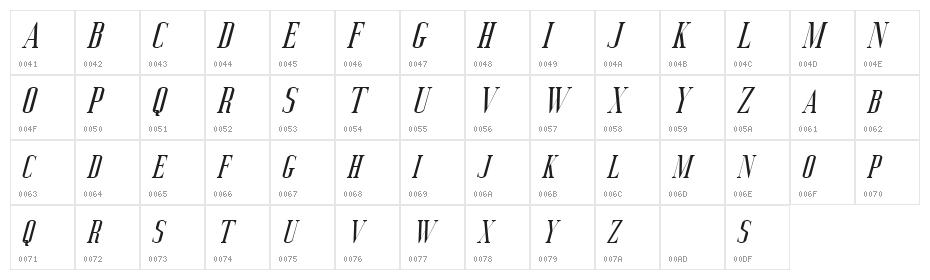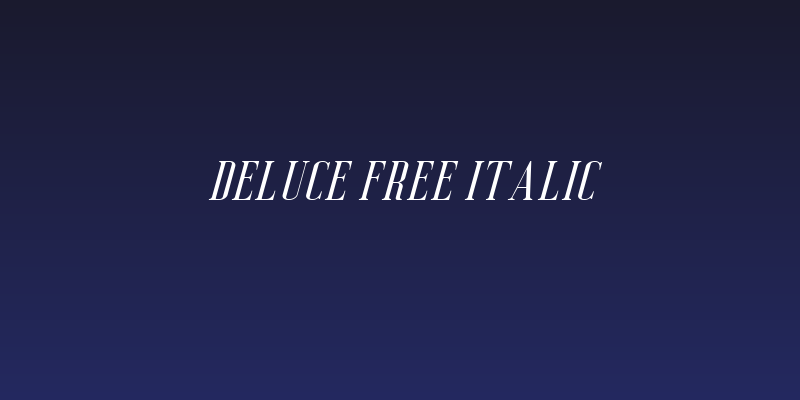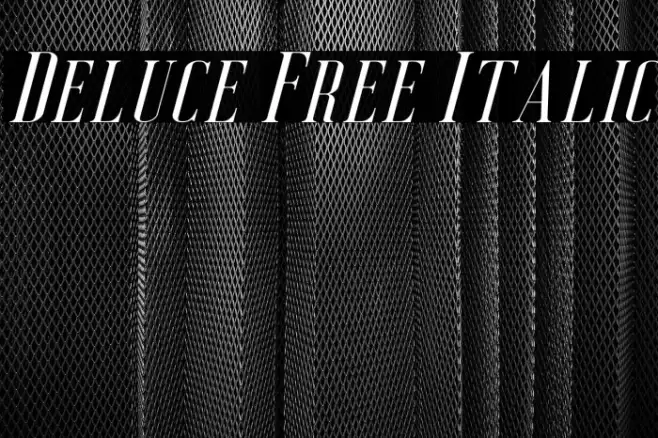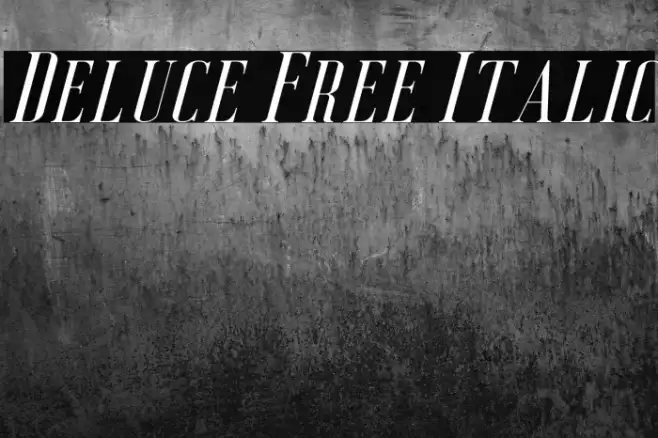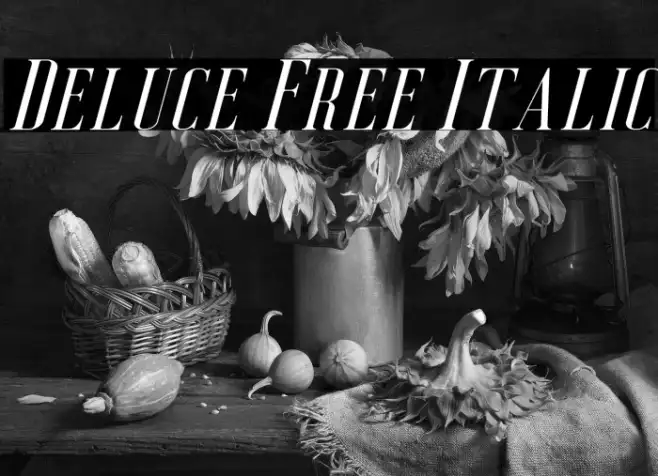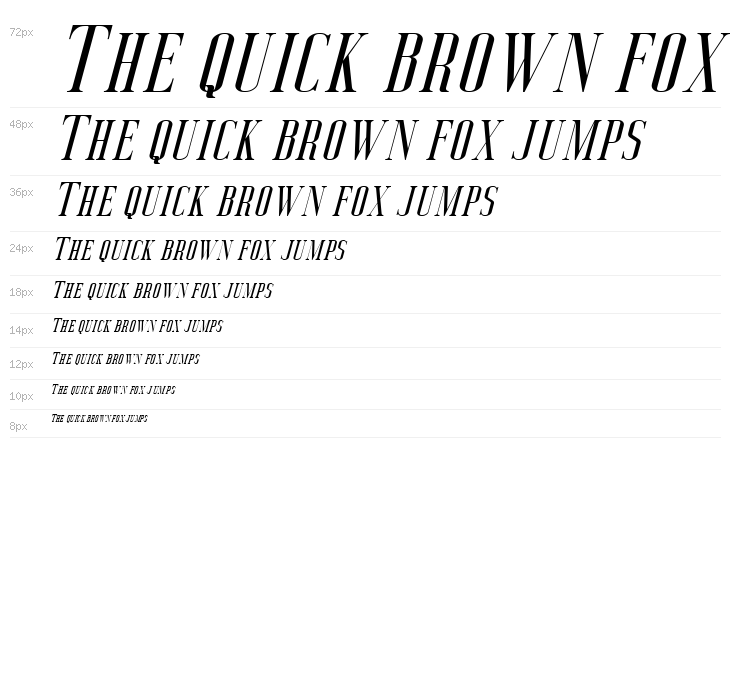
Deluce Free Italic Font
Deluce Free Italic Description
This font features an elegant and sophisticated italic style, characterized by its sleek and elongated letterforms. The strokes are thin and graceful, with a noticeable slant that adds a dynamic and fluid feel. The serifs are sharp and refined, contributing to a classic yet modern aesthetic. The overall appearance is both stylish and versatile, making it suitable for a variety of design applications. The font's high contrast between thick and thin strokes enhances its readability while maintaining an artistic flair.